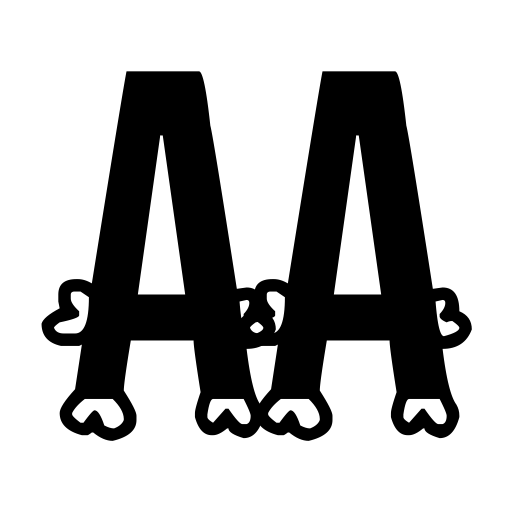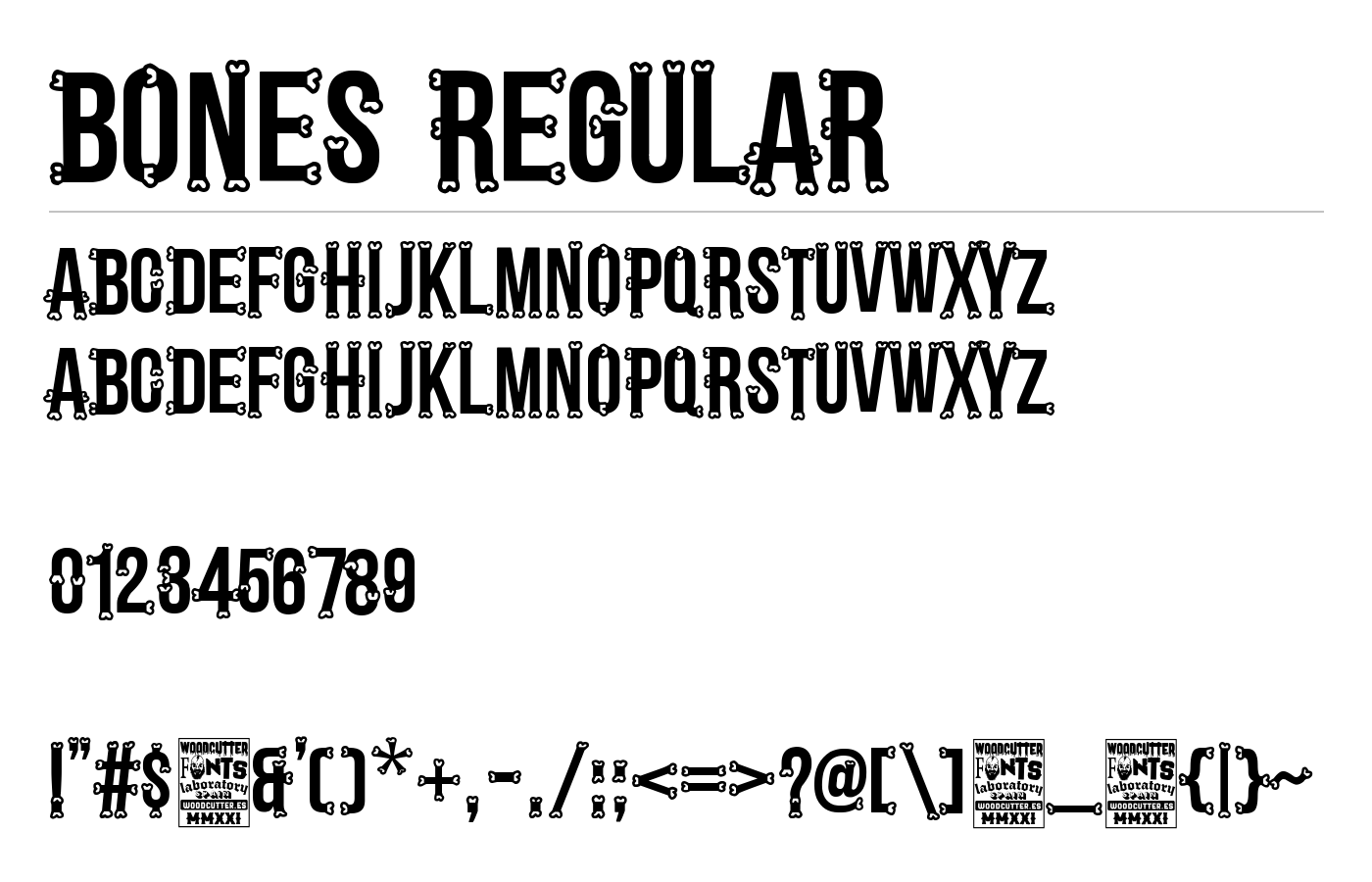
Bones Regular is a bold, condensed sans serif font with playful bone-shaped details at the stroke ends, giving it a quirky and fun character. Its tall x-height and uniform stroke weight make it highly legible, while the decorative bone motifs add a unique, spooky vibe perfect for Halloween-themed designs, kids' projects, and creative branding. This font works great in headlines, posters, and logos where a spirited and eye-catching effect is desired.
Bones Regular Font
About Bones Regular Font